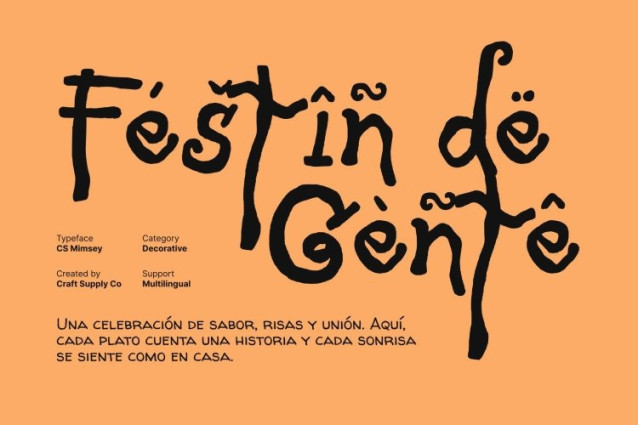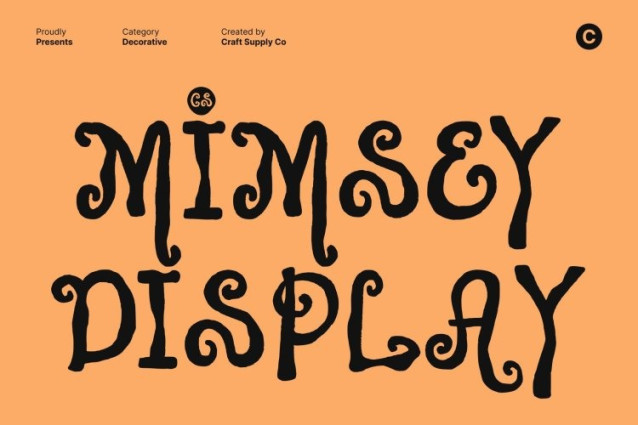
CS Mimsey Font
CS Mimsey Font This is a decorative display font featuring curved serif forms and intricate fantasy-inspired details. It combines playful elegance with imaginative design, resulting in a typeface that feels magical and full of personality, perfect for projects that aim to captivate and delight.
Whimsical Character for Storytelling
The whimsical shapes and gentle curves of this font create a sense of enchantment, making it ideal for children’s book covers, fairy tales, or educational projects. Each character tells a story, enhancing the narrative and visual appeal of your design.
Fantasy Details for Magical Design
Intricate etching and decorative touches add charm and depth to the font. These fantasy-inspired details ensure this font stands out in posters, branding, or creative layouts, giving every project a distinctive and imaginative flair.
Versatile for Playful Branding
Beyond books and posters, this font offers versatility for playful branding, merchandise, invitations, and digital media. Its combination of whimsical elegance and decorative fantasy makes it perfect for designers seeking a font that sparks imagination and brings a magical, memorable touch to every design.